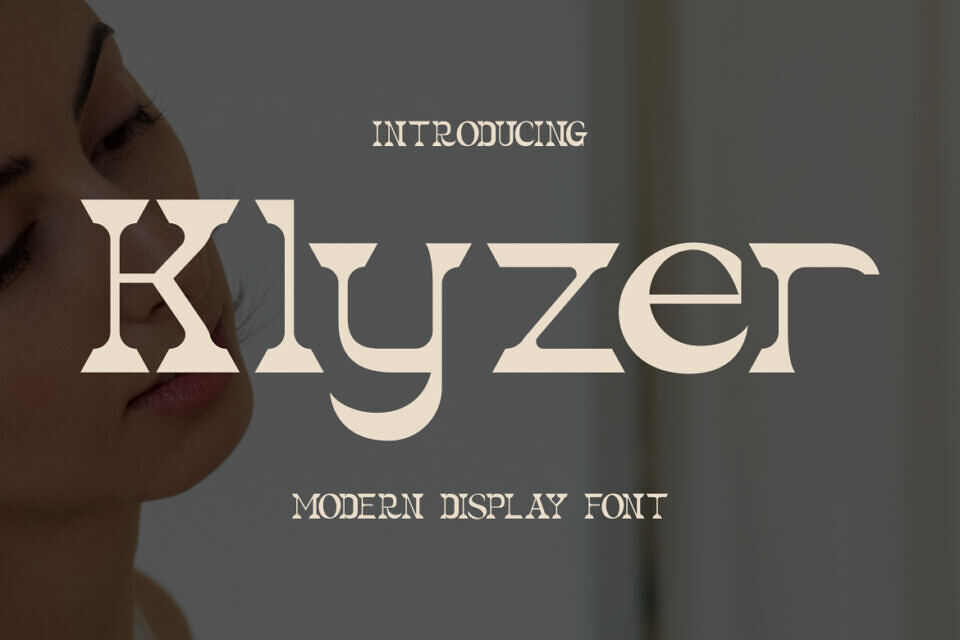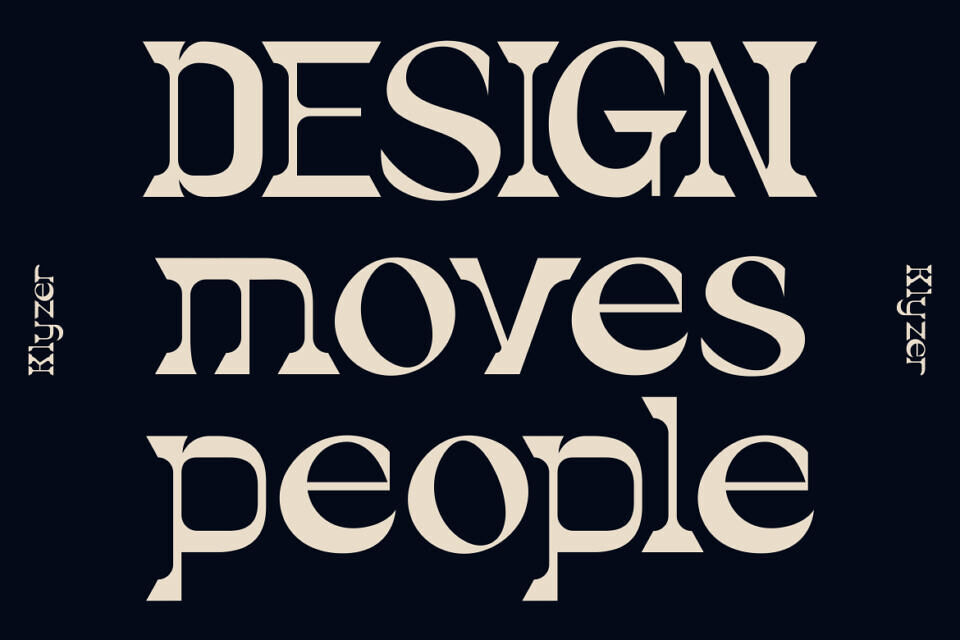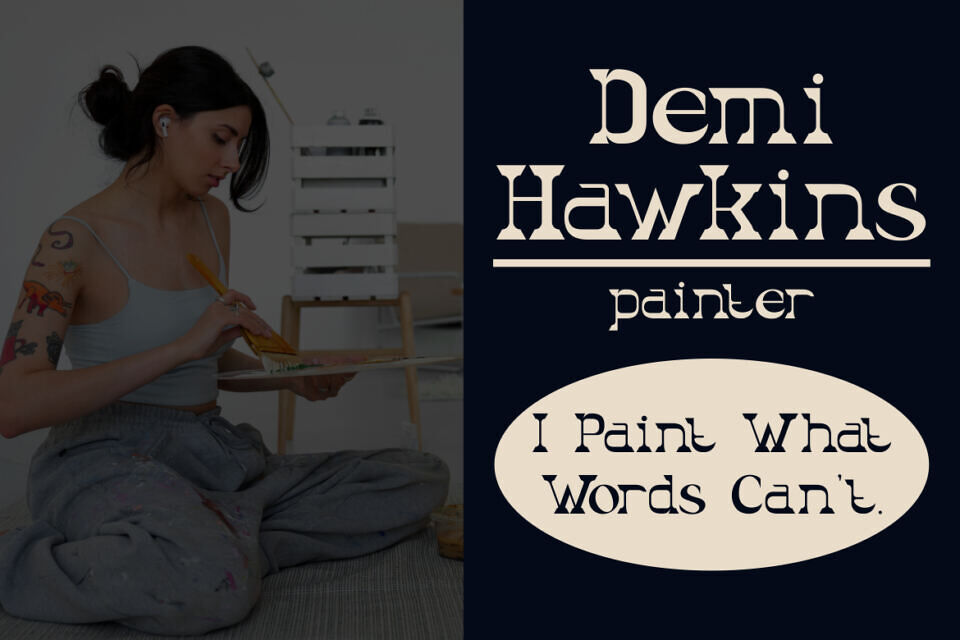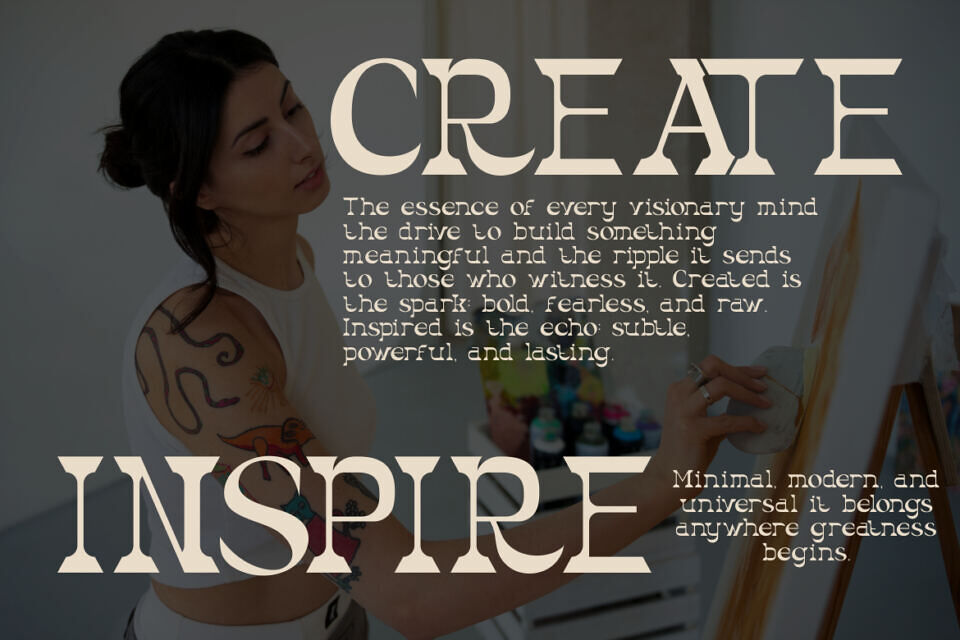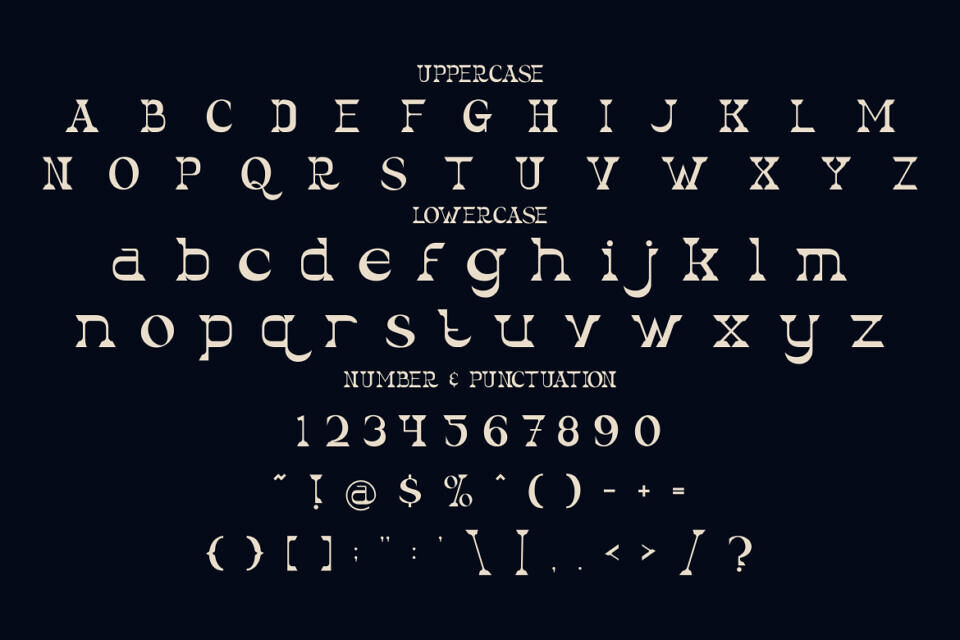
Klyzer Font
Klyzer is a bold and expressive modern display font that merges geometric precision with Latin-inspired flair. Each letterform is crafted with high contrast between wide and narrow strokes, combining sharp wedge serifs and subtle curves.
The design evokes a contemporary vintage feel, reminiscent of Mexican poster art and classic serif constructions—but with a modern twist. Klyzer’s unique rhythm and structure give off a powerful personality, making it ideal for headlines, logos, packaging, or any layout that needs to grab attention and radiate artistic confidence.
The font includes uppercase and lowercase letters, numerals, and a full range of punctuation, providing complete versatility for any design project.